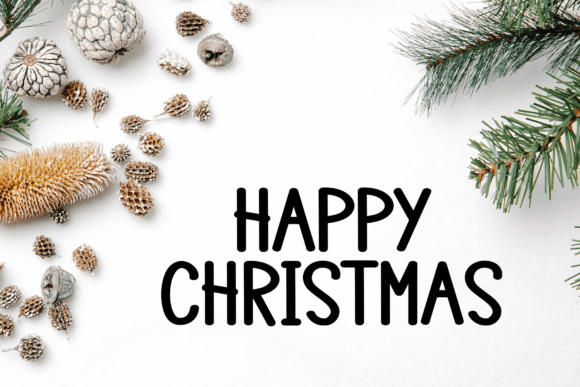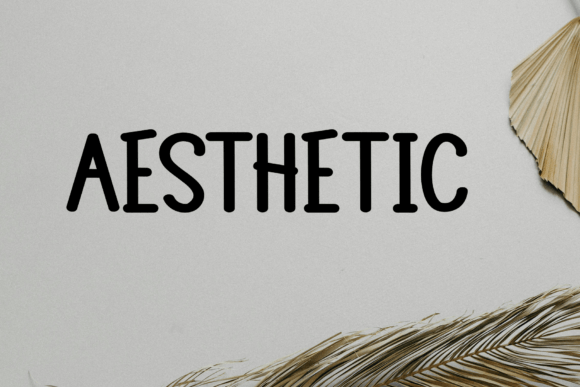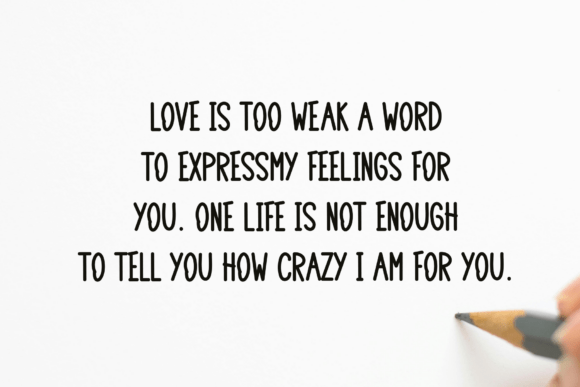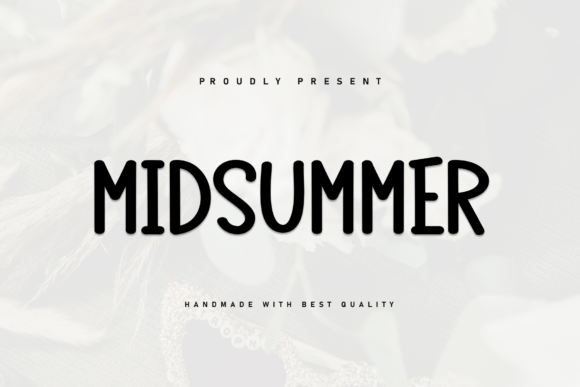
Introduction to Midsummer Font
Capture the warm, nostalgic essence of golden hour with the Midsummer Font .
This Midsummer typeface is a handmade display font that features soft, slightly irregular edges, giving it an authentic β€œstamped” or hand-painted feel It is designed to evoke the carefree spirit of summer festivals and outdoor adventures, making it an ideal choice for brands that want to feel grounded, approachable, and full of life.
Key Features of Midsummer Font
Why Choose Midsummer Font?